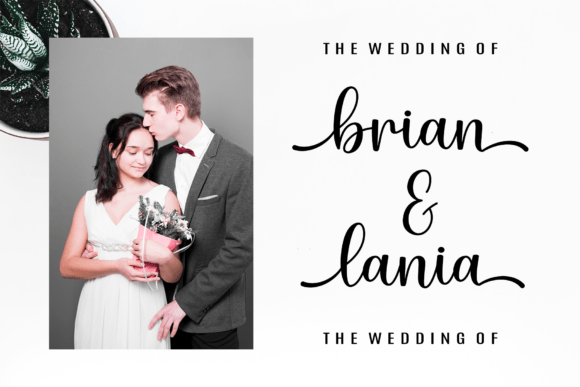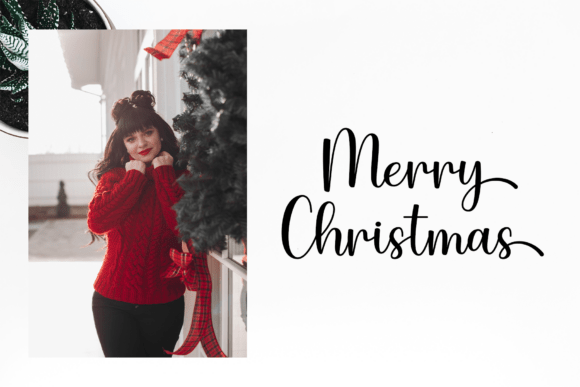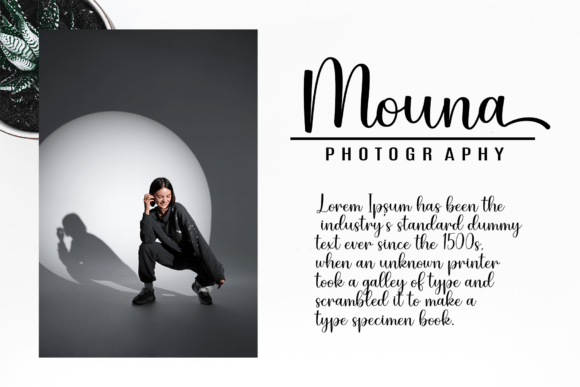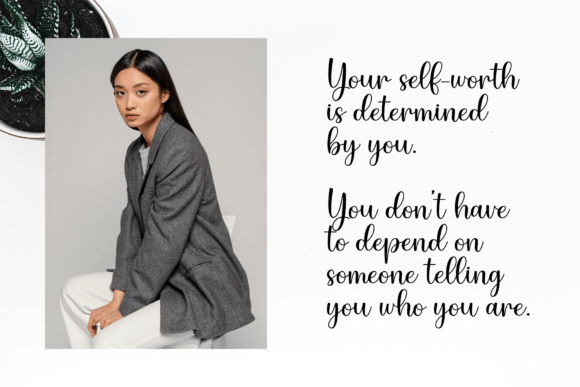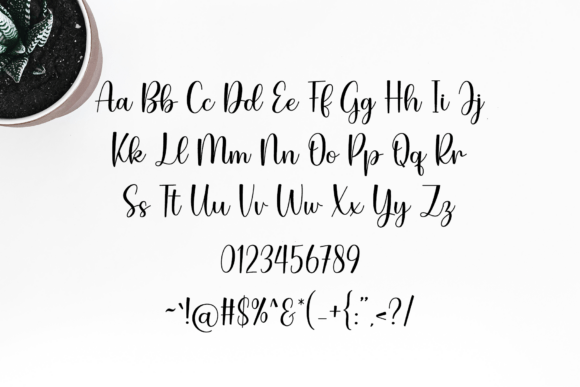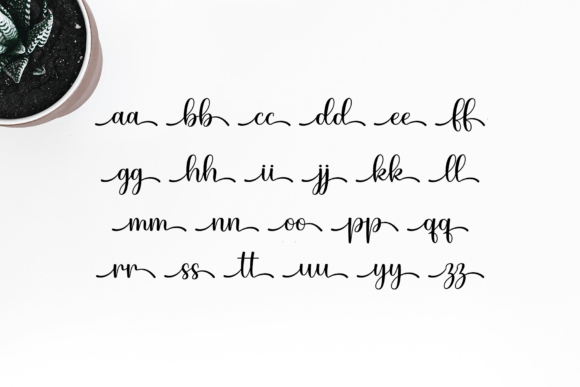
Introducing Family Holiday: The Ultimate Script Font for Unforgettable Designs
Are you tired of using the same old fonts for your creative projects? Do you want to add a touch of elegance and sophistication to your designs? Look no further than Family Holiday, a strikingly beautiful script font that is sure to leave a lasting impression. With its unique style and well-crafted design, this font is perfect for designers and crafters who want to create visually stunning works of art.
The Beauty of Family Holiday
Family Holiday is a script font like no other. Its elegant and refined design is evocative of touchingly memorable times, making it perfect for creating designs that are both sophisticated and memorable. Every letter in the font is carefully crafted to deliver a rich flow of refinement and distinction, making it ideal for a wide range of creative projects, from wedding invitations and greeting cards to branding and advertising.
What Sets Family Holiday Apart
So, what makes Family Holiday stand out from other script fonts? Here are just a few of its unique features:
- Unique Style: Family Holiday boasts a distinctive style that is both elegant and refined. Its unique lettering style is sure to grab attention and leave a lasting impression.
- Well-Crafted Design: Every letter in the font is carefully crafted to deliver a smooth flow of refinement and distinction. The result is a font that is both beautiful and highly legible.
- Sophisticated Elegance: Family Holiday exudes sophistication and elegance, making it perfect for creating designs that are both refined and memorable.
- Timeless Beauty: Unlike other fonts that may quickly go out of style, Family Holiday’s timeless beauty ensures that your designs will remain stylish and relevant for years to come.
Uses for Family Holiday
Family Holiday is an incredibly versatile font that can be used for a wide range of creative projects, including:
- Wedding Invitations: Add a touch of elegance and sophistication to your wedding invitations with Family Holiday.
- Greeting Cards: Create beautiful and memorable greeting cards for special occasions like birthdays, anniversaries, and holidays.
- Branding: Use Family Holiday to create a unique and memorable brand identity for your business or organization.
- Advertising: Add a touch of sophistication and elegance to your advertising campaigns with Family Holiday.
Why Designers and Crafters Love Family Holiday
Designers and crafters love Family Holiday for many reasons, including:
- Ease of Use: Family Holiday is incredibly easy to use, even for those who are new to working with script fonts.
- Customization: The font is highly customizable, allowing you to adjust the size, color, and style to suit your needs.
Family Holiday is a truly exceptional script font that is sure to elevate your creative projects to new heights. With its unique style, well-crafted design, and sophisticated elegance, this font is perfect for designers and crafters who want to create visually stunning works of art. Whether you’re creating wedding invitations, greeting cards, or branding and advertising materials, Family Holiday is the perfect choice. So why wait? Get ready to transform every creative venture into a visual masterpiece with the Family Holiday script font’s timeless beauty and remarkable grace.